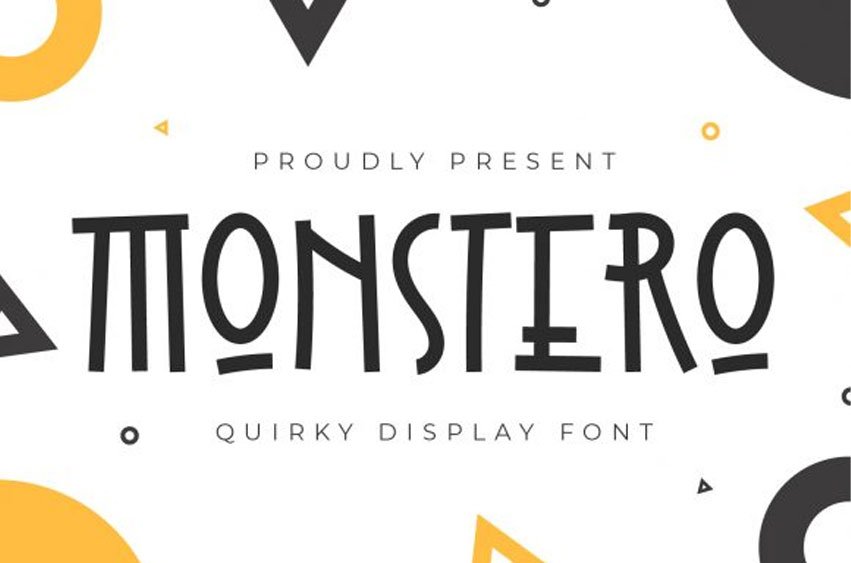
Monstero Font
Monstero Font is a simple and quirky display font.
No matter the topic, this font will be an incredibly asset to your fonts’ library, as it has the potential to elevate any creation.